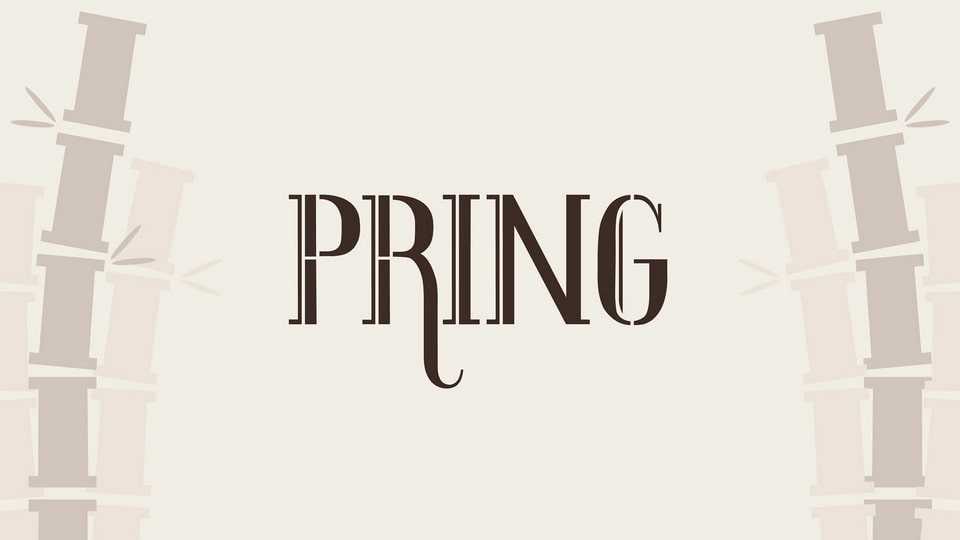
Download Pring font, a decorative typeface inspired by the natural beauty and elegance of bamboo. Pring font features letterforms that mimic the organic, slender shapes of bamboo stalks.
Designer: Alicia Charmanita Wayl